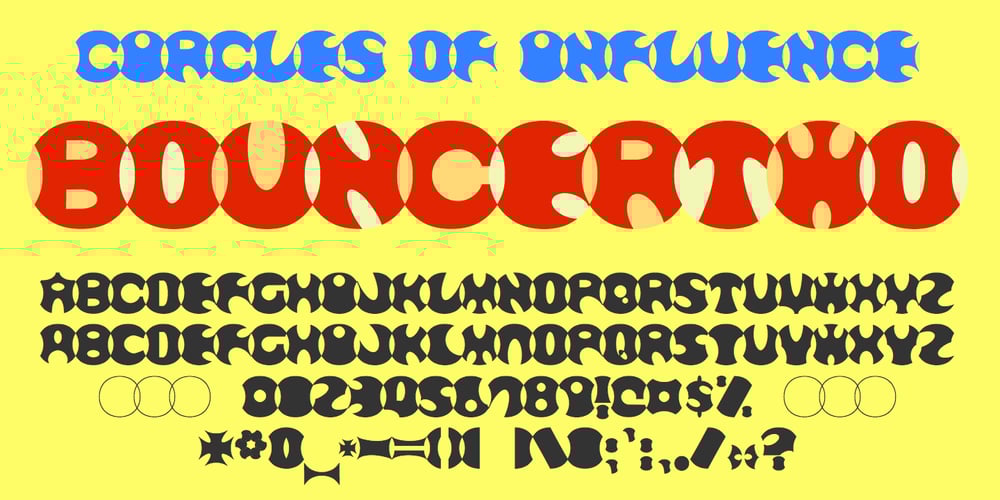
Bouncer Font Family was designed by Robert Schenk and published by Ingrimayne Type. Bouncer contains 2 styles and family package options. The letters in Bouncer are round because they all begin as a ball and then have parts of the ball cut away. Bouncer was one of the earliest typefaces from Ingrimayne Type. Lower-case letters are smaller versions of the upper-case letters. BouncerTwo, designed twenty years after the original Bouncer, continues playing with the idea of making letters by cutting out parts of a circle, but in this case the circles are interlocking. All letters are upper-case but some of those on the lower-case keys differ from those on the upper-case keys. BouncerTwo is eye-catching but not highly legible.